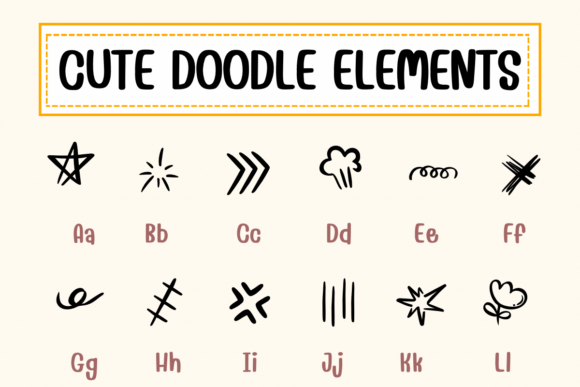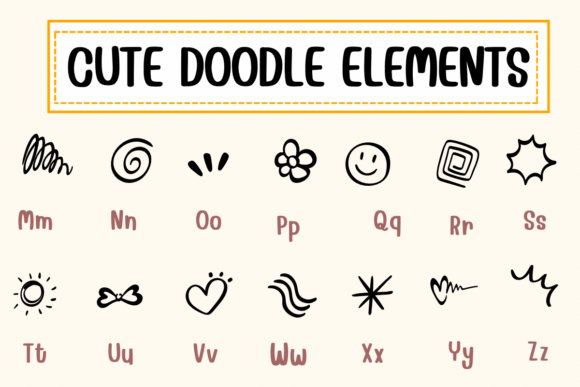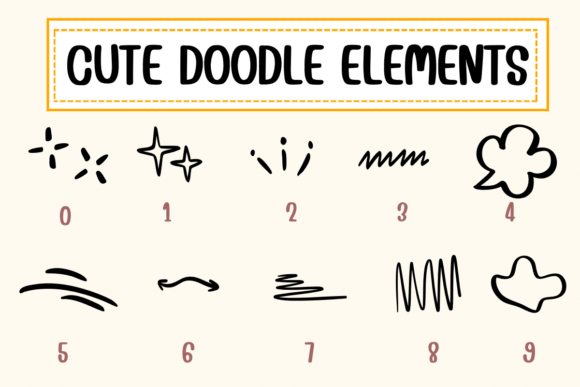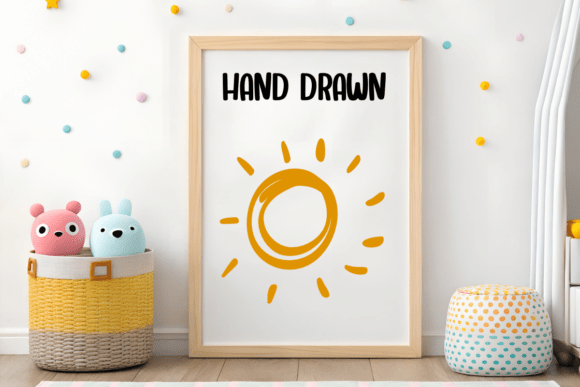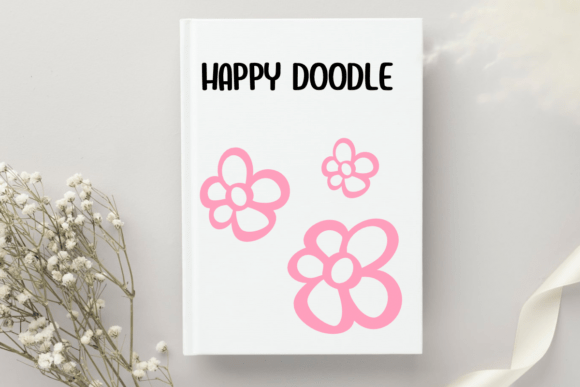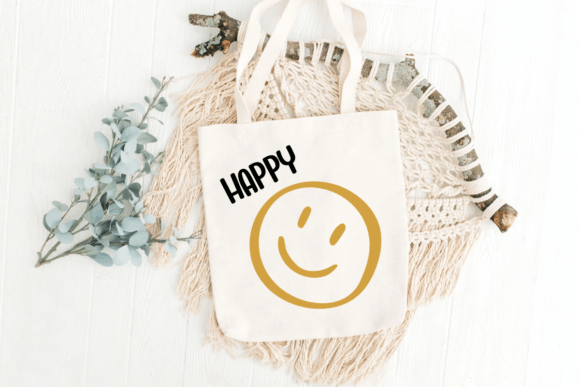
Cute Doodle Elements Font: Unleash Your Creativity with this Charming Dingbats Font
Are you a designer, crafter, or DIY enthusiast looking for a unique and playful font to elevate your creative projects? Look no further than the Cute Doodle Elements Font, a delightful dingbats font that brings a touch of whimsy and charm to any design. With its sketch-style theme, this font is perfect for adding a personal and artistic touch to your wedding invitations, DIY projects, crafts, decorations, logos, and many other creative endeavors.
What is Cute Doodle Elements Font?
Cute Doodle Elements Font is a dingbats font that features a collection of adorable doodle-style illustrations, including shapes, icons, and symbols. This font is designed to be versatile and easy to use, making it perfect for a wide range of creative projects. Whether you’re a professional designer or a crafty DIY enthusiast, this font is sure to inspire your next project.
Key Features of Cute Doodle Elements Font
- Sketch-style theme: The Cute Doodle Elements Font features a charming sketch-style theme that adds a touch of warmth and personality to your designs.
- Dingbats font: This font is a dingbats font, which means it features a collection of illustrations and symbols rather than traditional letterforms.
- Versatile: The Cute Doodle Elements Font is perfect for a wide range of creative projects, from wedding invitations and DIY crafts to logos and decorations.
Creative Ways to Use Cute Doodle Elements Font
The Cute Doodle Elements Font is a versatile font that can be used in a variety of creative projects. Here are some ideas to get you started:
- Wedding Invitations: Add a touch of whimsy and romance to your wedding invitations with the Cute Doodle Elements Font.
- DIY Crafts: Use this font to create custom labels, tags, and decorations for your DIY crafts.
- Logos: The Cute Doodle Elements Font is perfect for creating unique and memorable logos for your business or brand.
- Decorations: Use this font to create custom signs, banners, and decorations for parties, events, and special occasions.
Tips for Using Cute Doodle Elements Font
Here are some tips for getting the most out of the Cute Doodle Elements Font:
- Experiment with different colors: The Cute Doodle Elements Font looks great in a variety of colors, so don’t be afraid to experiment and find the perfect hue for your project.
- Mix and match: Combine the Cute Doodle Elements Font with other fonts and illustrations to create a unique and eye-catching design.
- Use it sparingly: While the Cute Doodle Elements Font is fun and playful, it can be overwhelming if used too much. Use it sparingly to add a touch of personality to your design.
The Cute Doodle Elements Font is a charming and versatile dingbats font that’s perfect for designers, crafters, and DIY enthusiasts. With its sketch-style theme and easy-to-use design, this font is sure to inspire your next creative project. Whether you’re looking to create custom wedding invitations, DIY crafts, logos, or decorations, the Cute Doodle Elements Font is a great choice. So why wait? Download the Cute Doodle Elements Font today and start unleashing your creativity!